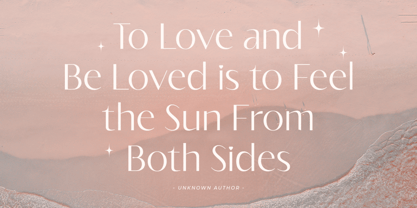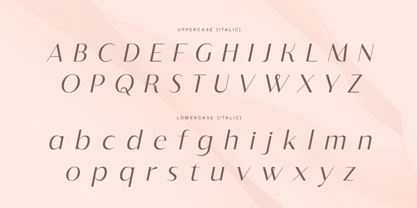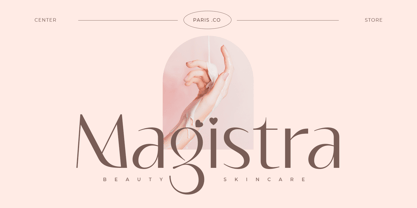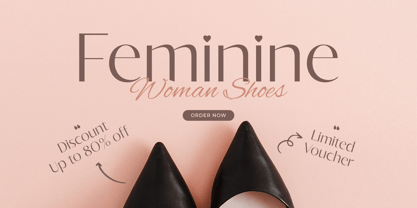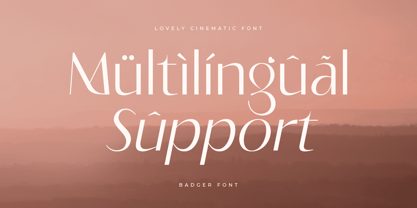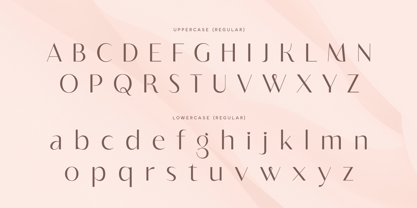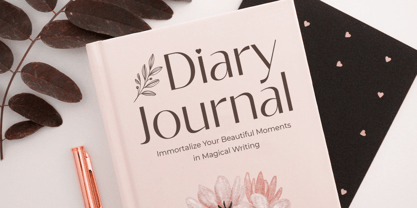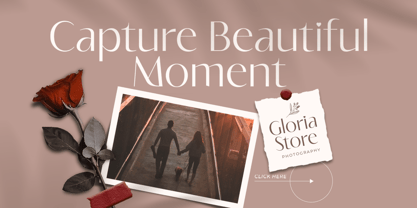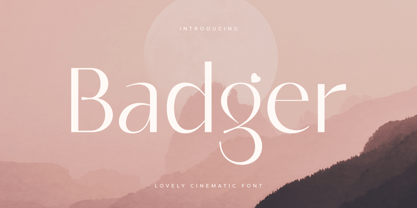
Badger
by Sensatype Studio
The Badger Font Family was designed by Zamroni Hamzah and published by Sensatype Studio. Badger contains 2 styles and family package options. More about this family
Badger - Lovely Cinematic Font
Badger is a charming and cinematic font designed to bring a touch of elegance and uniqueness to your logo designs. Its stylish characters are perfect for creating logos that stand out with a lovely, cinematic flair. Whether you're working on branding for a film, theater, or a creative project, Badger adds a distinctive and appealing look.
Inspired by classic cinematic styles, Badger combines sophisticated letterforms with modern design elements, making it ideal for high-impact visual identities. It’s versatile enough to enhance everything from movie posters to elegant brand marks.
With its range of unique characters and OpenType features, Badger ensures that your logo or design project will have a polished and memorable finish. Perfect for any creative endeavor needing a blend of charm and cinematic style.
Badger Lovely Cinematic Font Features:
• Unique Characters Ready
• Punctuation, Number, and Symbol
• Uppercase and Lowercase
• Multilingual Support
• OpenType Features
Designers: Zamroni Hamzah
Foundry: Sensatype Studio